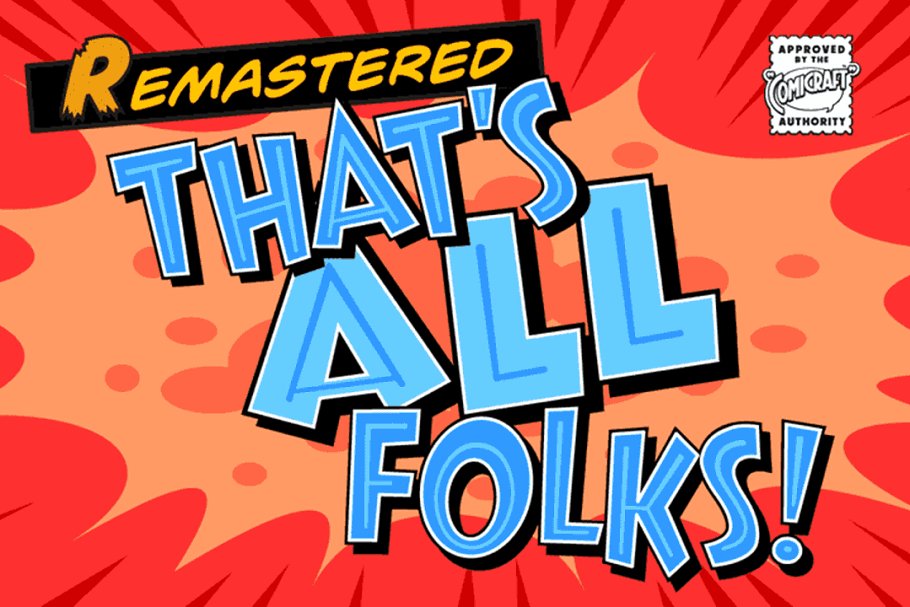
Run amuck and head on down to Toon Town with us to enjoy some Madcap Laffs with our latest Frolicking Font, ‘THAT’S ALL FOLKS’. It’s good, clean family fun for all your favorite comic cuts and looney’toons! What’s more, it’s (sing along) S-O-E, A-S-Y, T-O-U-S-E!
Remastered That’s All Folks now has INLINE weights (Regular & Bold), plus improved spacing & kerning, auto-ligatures and Crossbar I Technology™